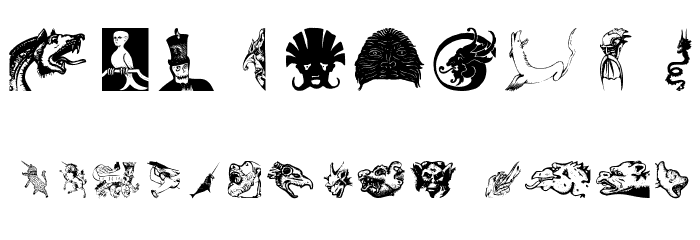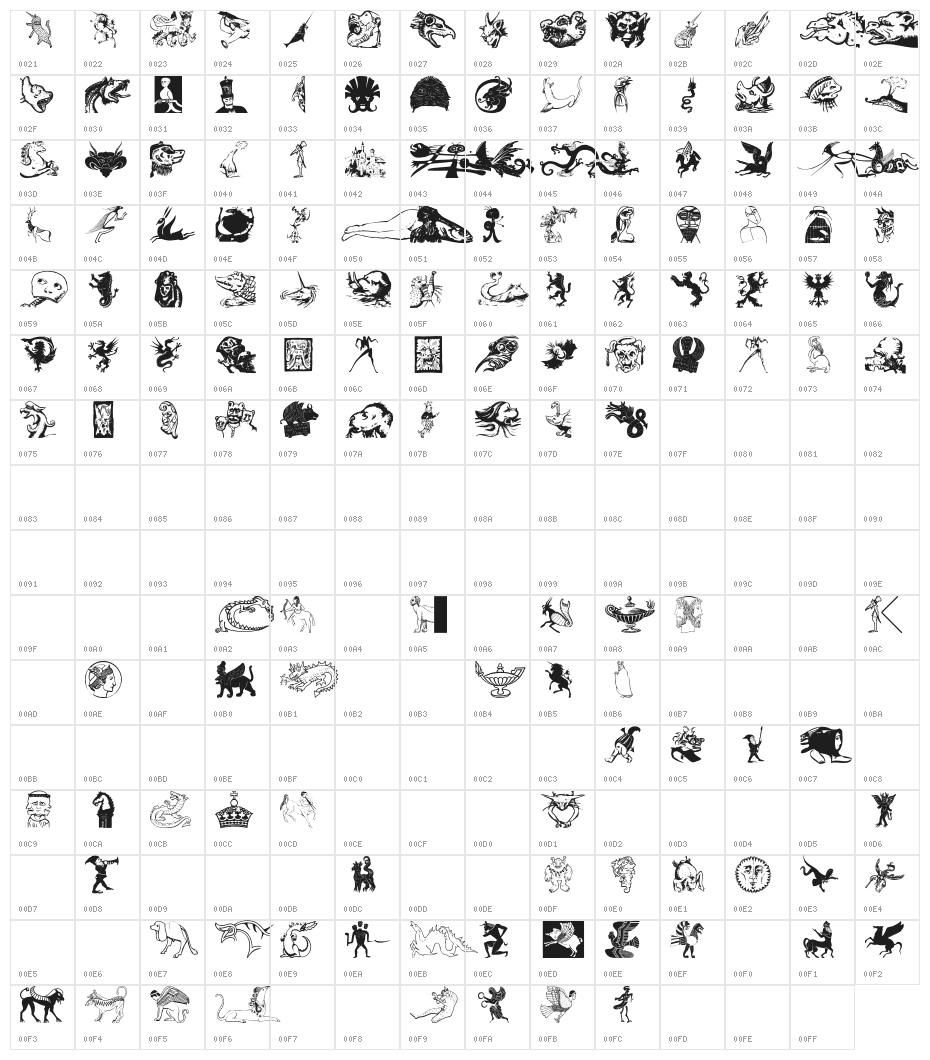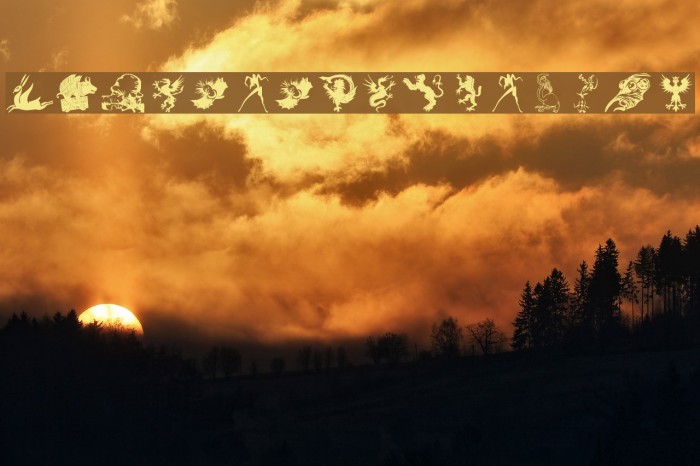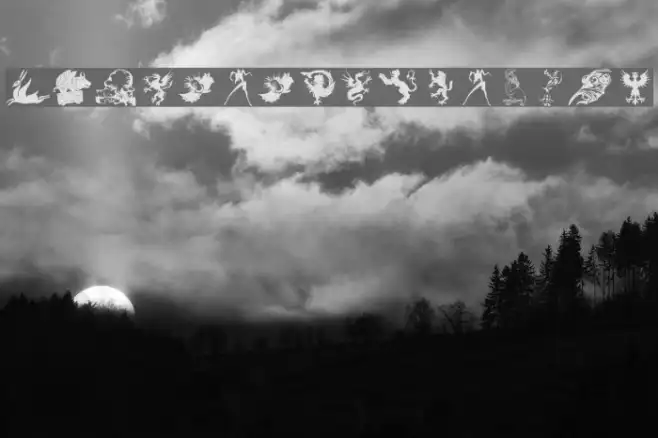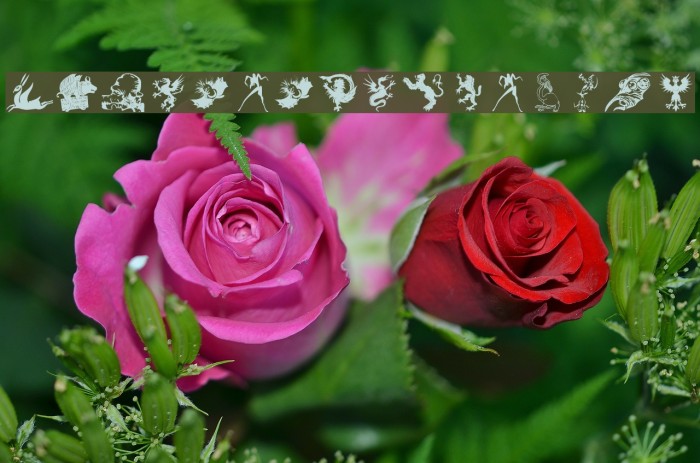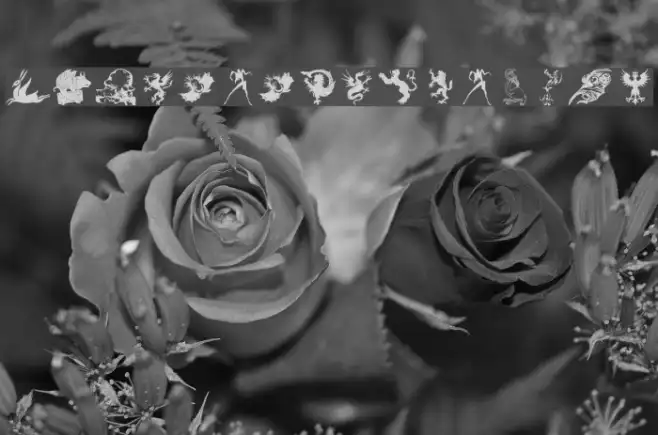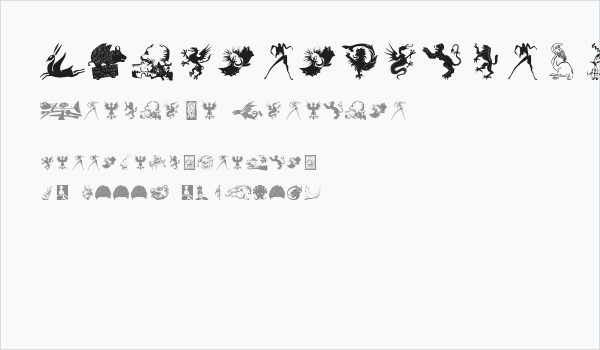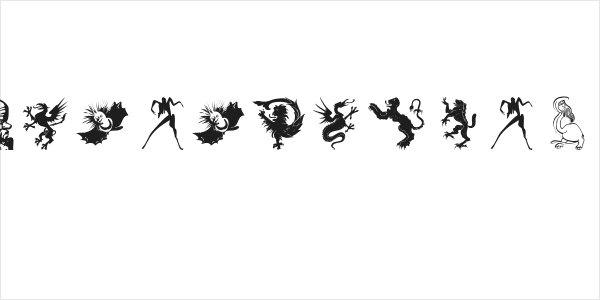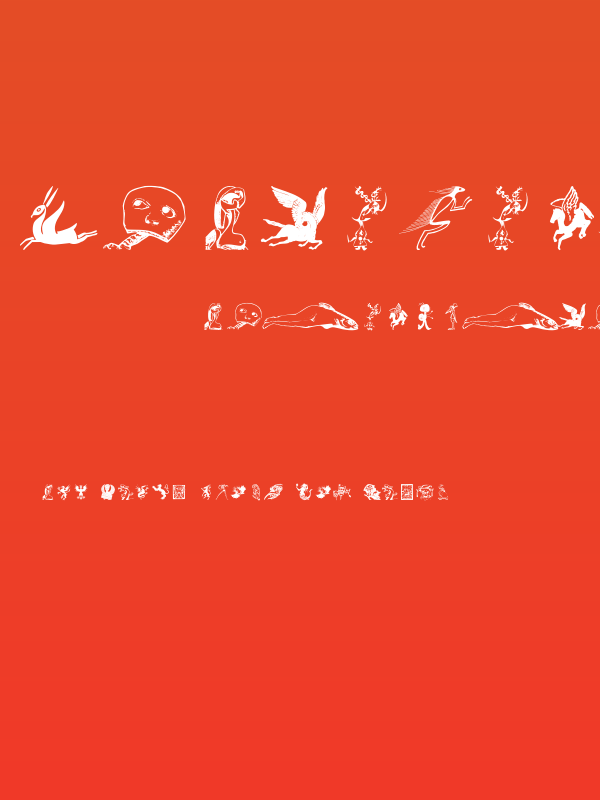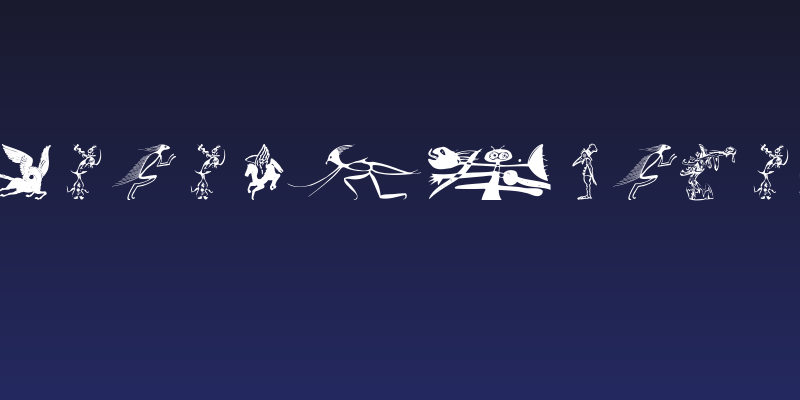
MythologicalsOne Font
MythologicalsOne Description
A decorative display font composed entirely of intricate mythological and fantasy-themed illustrations, featuring creatures, masks, and figures rendered in high-contrast black and white silhouettes. Each glyph is a unique pictorial representation rather than a traditional alphanumeric character.
| Overall Style | Decorative, Fantasy, Mythological |
| Use Case | Logos, Headlines, Posters, Themed graphics |
| Proposed Projects | Book covers, fantasy game titles, poster art, themed event invitations, decorative initials. |